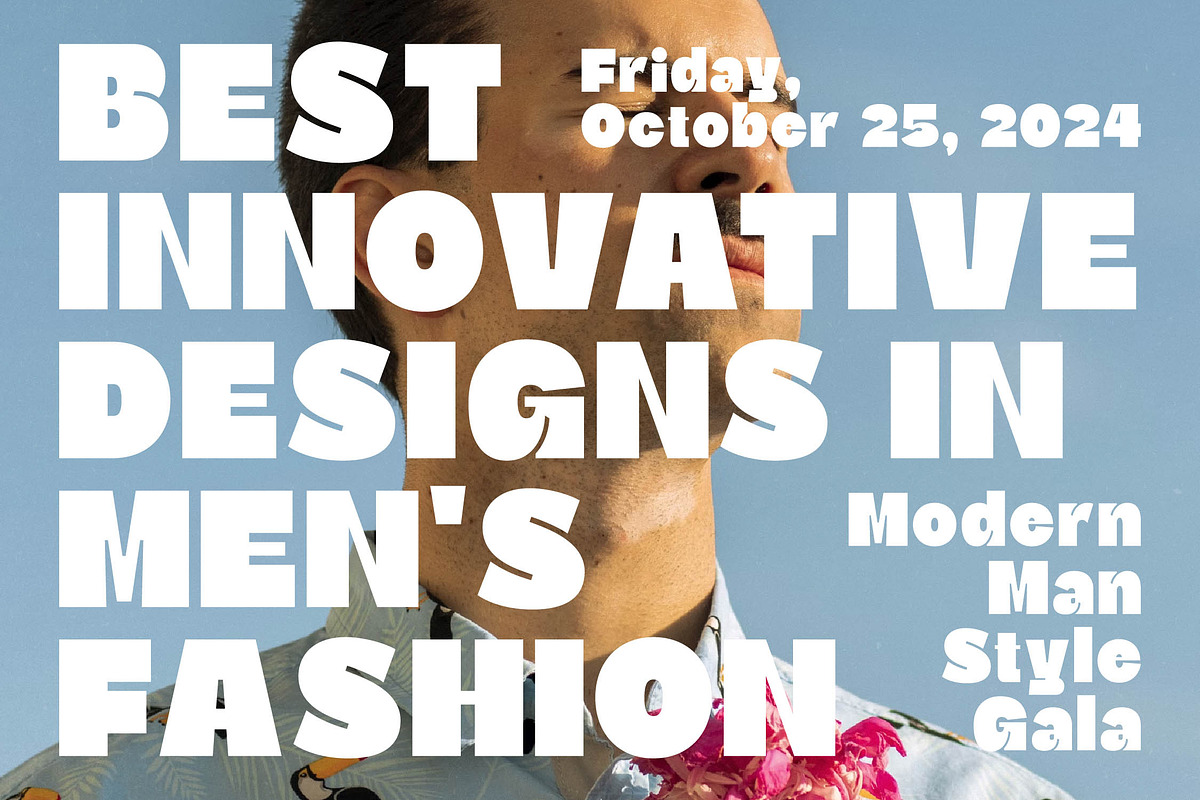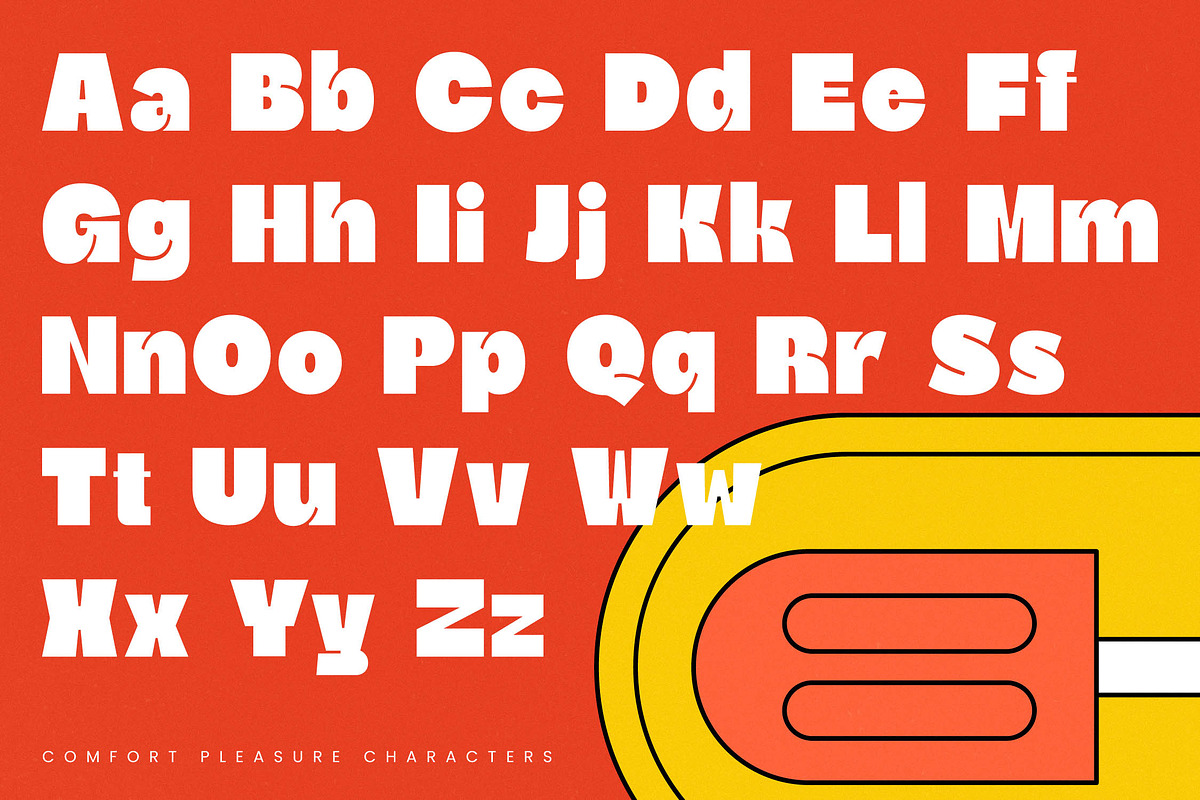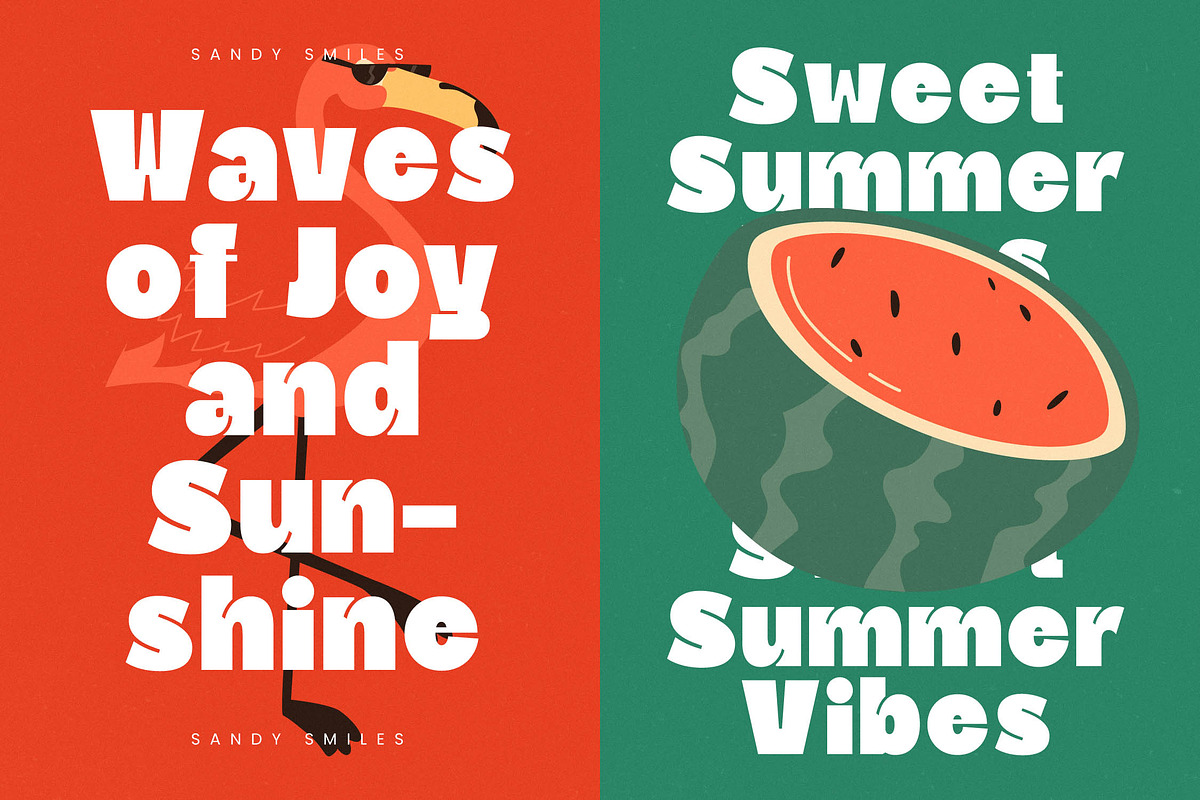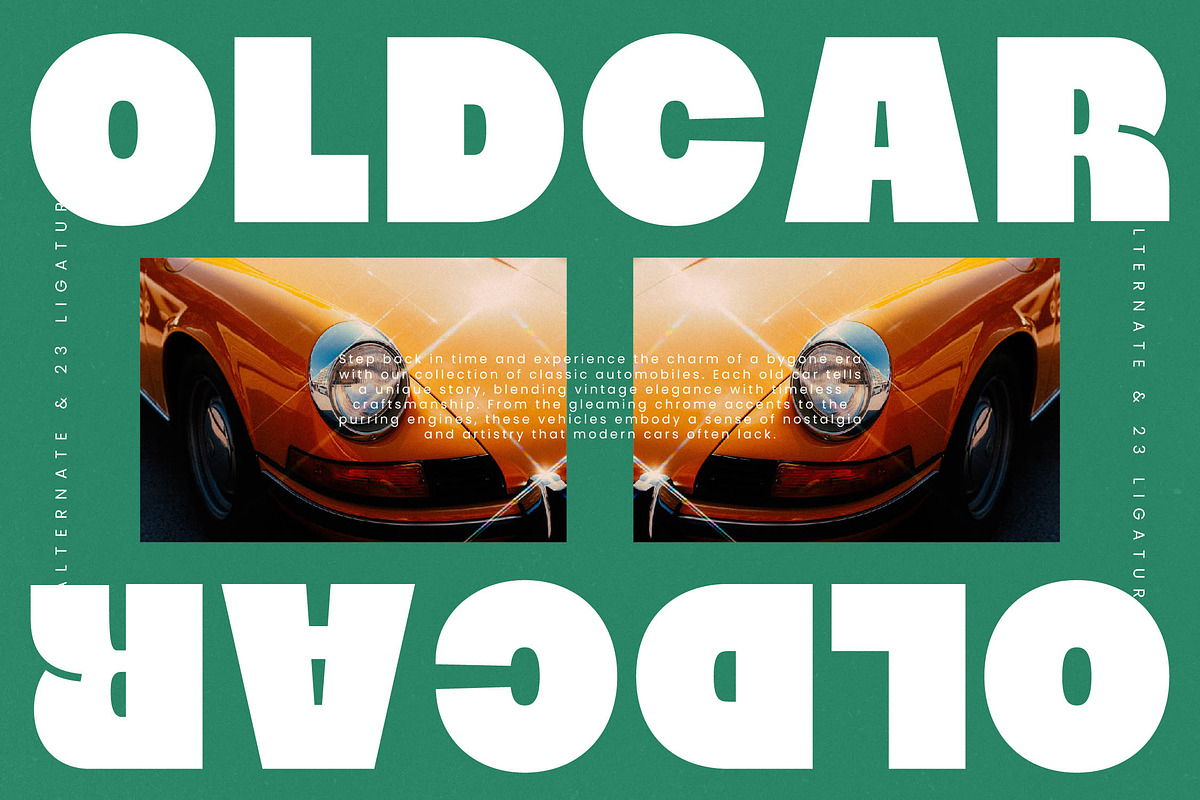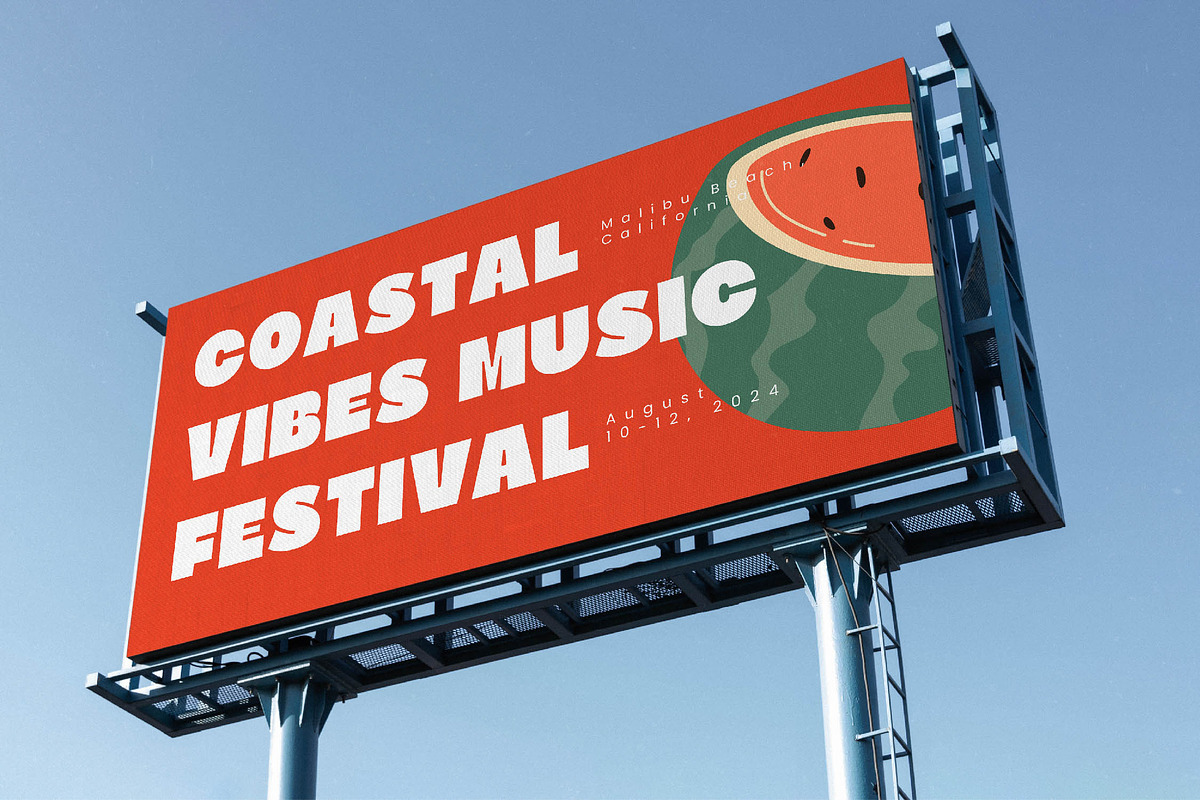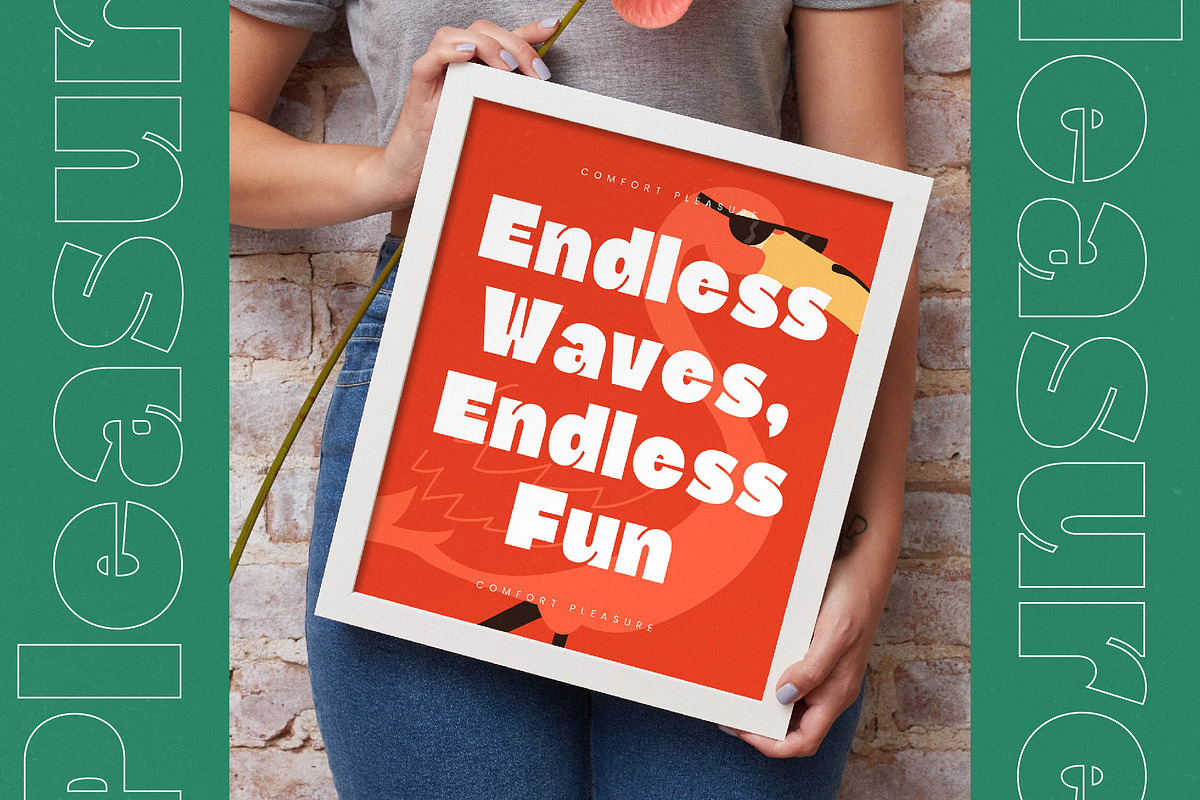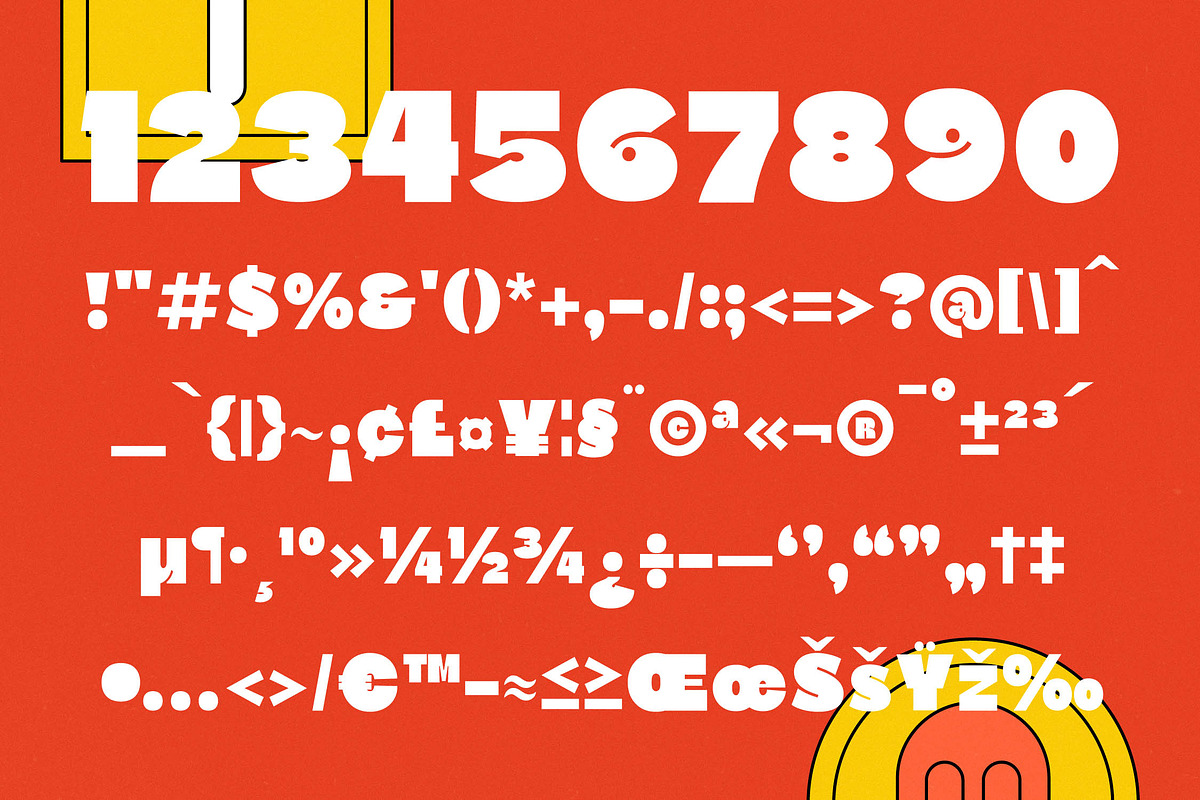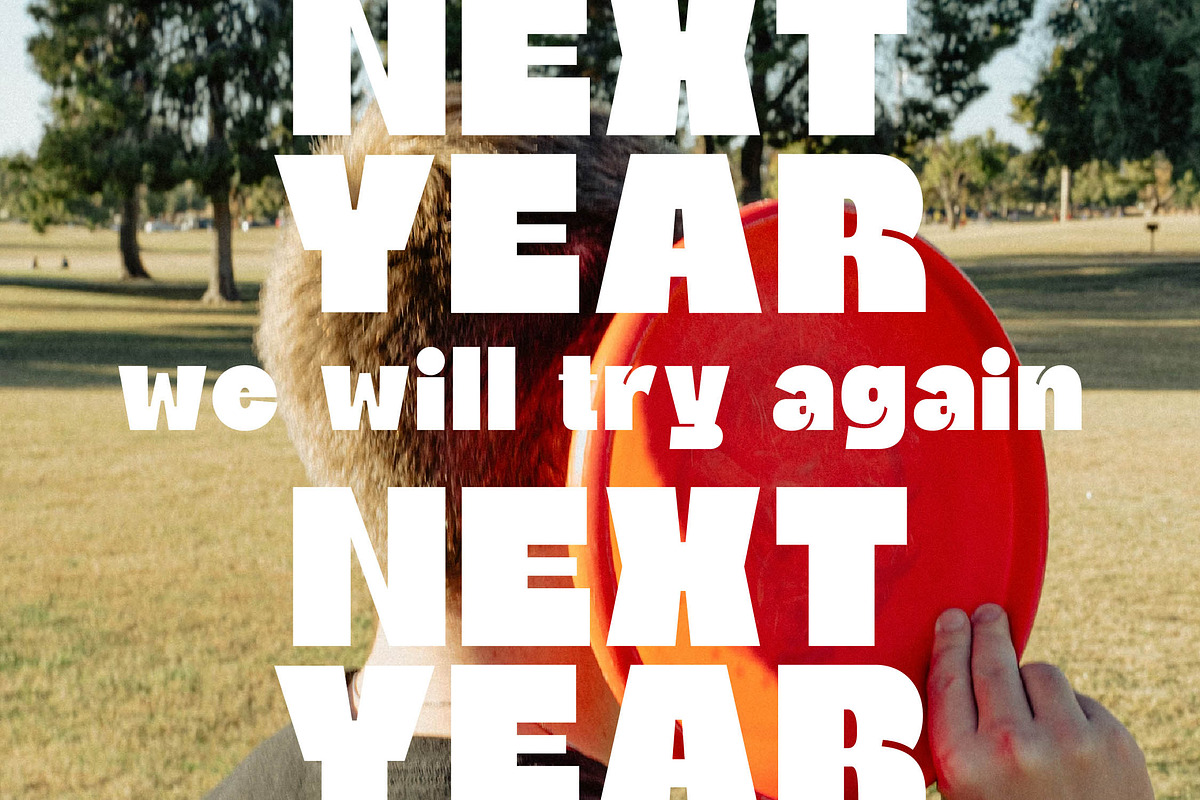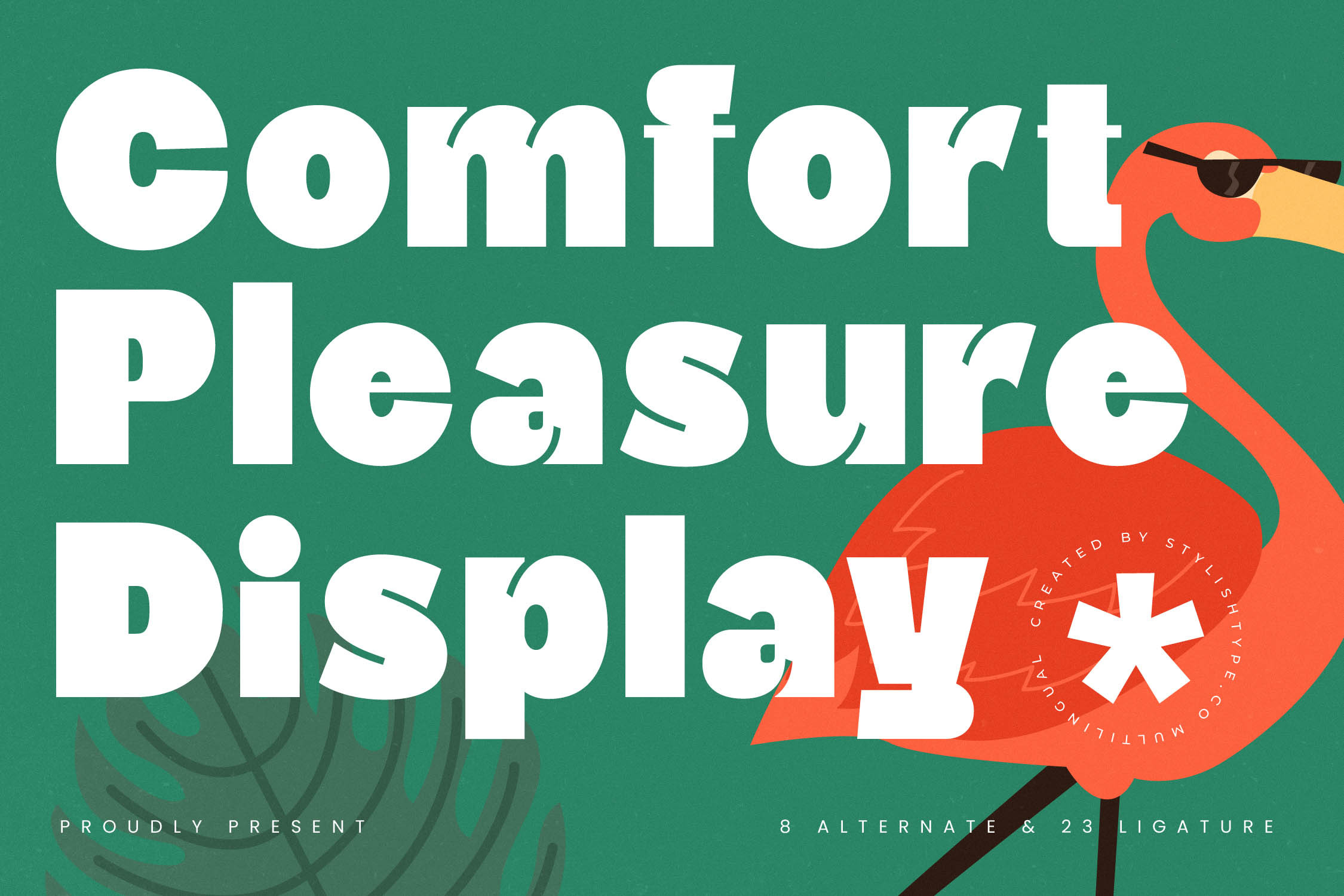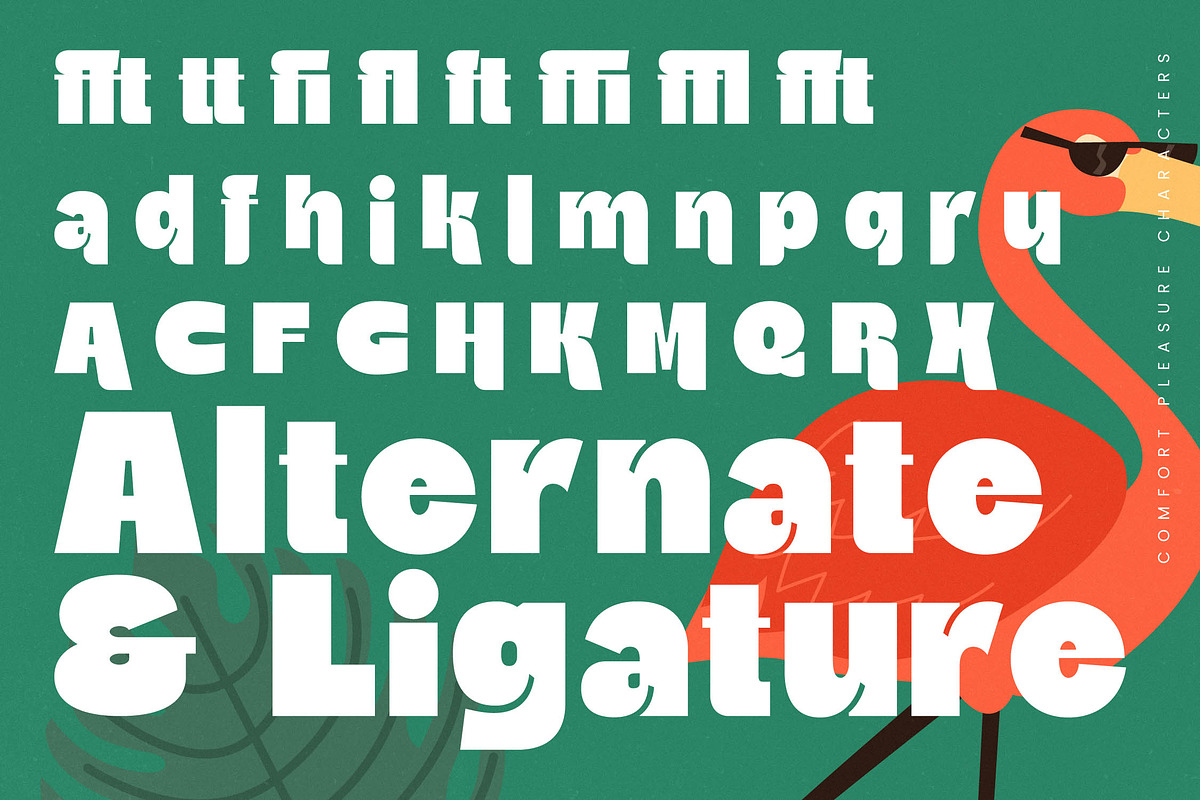
Comfort Pleasure Display Font
Meet Comfort Pleasure, a bold and vibrant display font designed to inject personality and a sense of joy into every creative project. It is the perfect typographic companion for designers looking to make a loud, unforgettable statement with ease.
Drawing inspiration from the laid-back vibes of retro tropical aesthetics and high-impact street signage, this typeface captures the essence of a sun-soaked afternoon. Its blocky forms and unique character cuts evoke a sense of playful nostalgia combined with contemporary edge.
This modern serif display exudes a sense of confidence and fun that is hard to ignore. With its thick strokes and intentional spacing, it offers a luxury typography feel that does not take itself too seriously, making it a powerful choice for high-contrast serif lovers and anyone needing an editorial font with significant branding impact.
Perfectly aligned with the modern serif trend, this font taps into the current demand for editorial display fonts that break away from traditional minimalism. It sits at the intersection of vintage charm and bold modernism, offering character-driven typography that stands out in a crowded digital landscape.
Ideally suited for logo design and high-end branding, this typeface also shines in editorial layouts where headlines need to pop. Whether you are working on vibrant packaging, a high-fashion wedding invitation suite, or fashion magazine spreads, it provides the versatility needed for premium visual storytelling.
The package comes loaded with a suite of ligatures, alternates, and swashes that allow for custom typographic flourishes. It also includes comprehensive multilingual support and a wide range of international characters, ensuring your message can be delivered globally without compromise.
- Ligature 23 Alternate 8